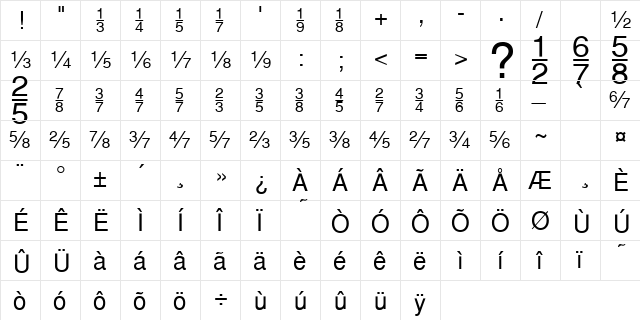
HeFractions Regular
Design Context for HeFractions Typeface
HeFractions offers clean, dependable letterforms without strong stylistic allegiance, making it a practical choice for designers who need flexibility.
Pro Tip: Use HeFractions in both headline and body roles to test its range before committing to a single application.